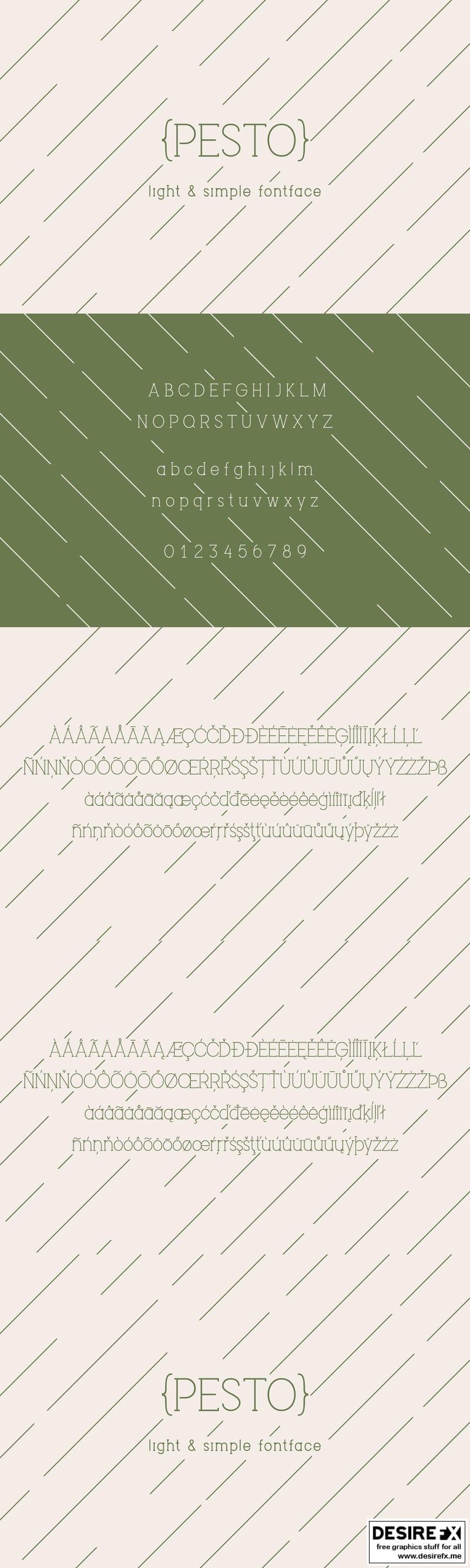
Pesto VW336K
Multilangual, regular, light sans-serif typeface. Great choice for vintage logos, branding, arts, posters, also can be used in the articles or some text.
Support spanish, portuguese, german, danish, french, canadian french, italian, western and central european languages and cyrillic.